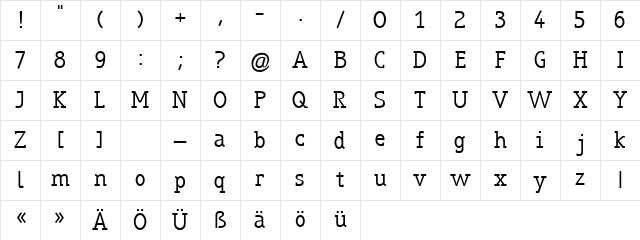
truebo serif carries the refined structure of traditional serif typography, with bracketed terminals and considered proportions that communicate credibility and craft.
Pro Tip: Use truebo serif for editorial body copy and considered headline work. Pair with a neutral sans for UI elements or captions to create a classic hierarchy.